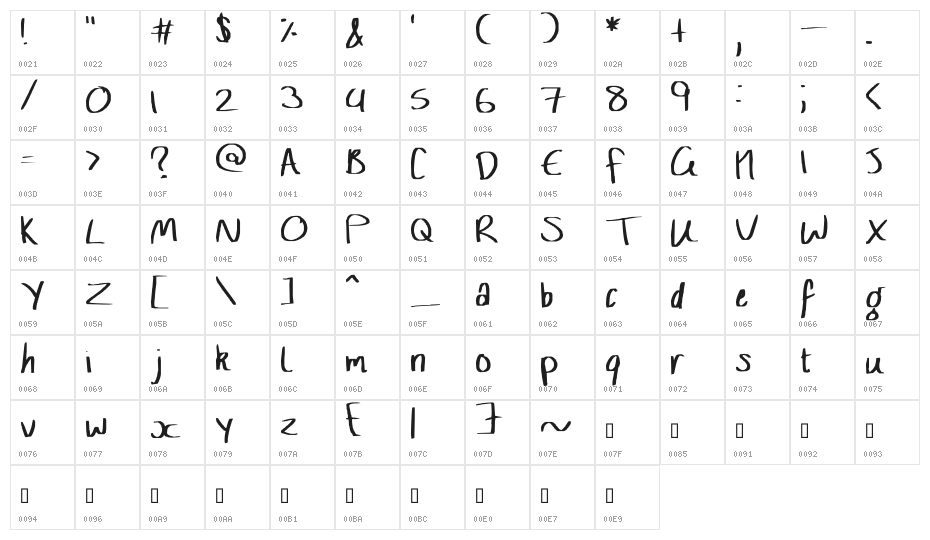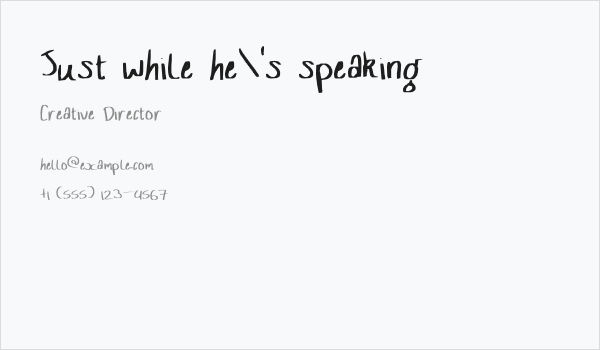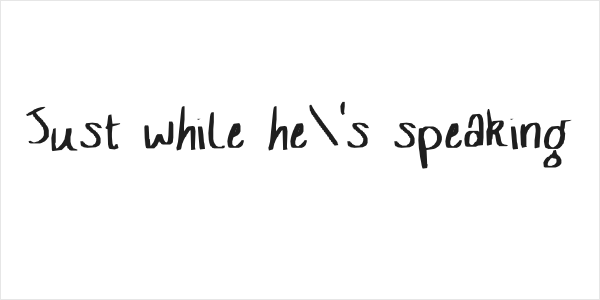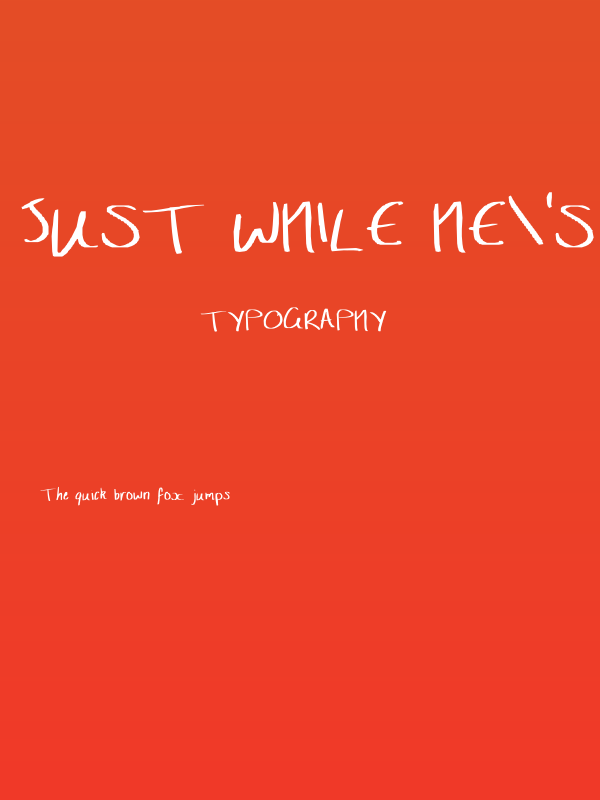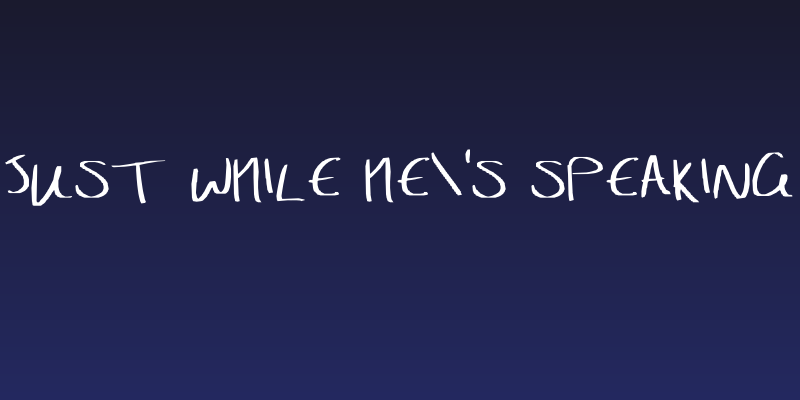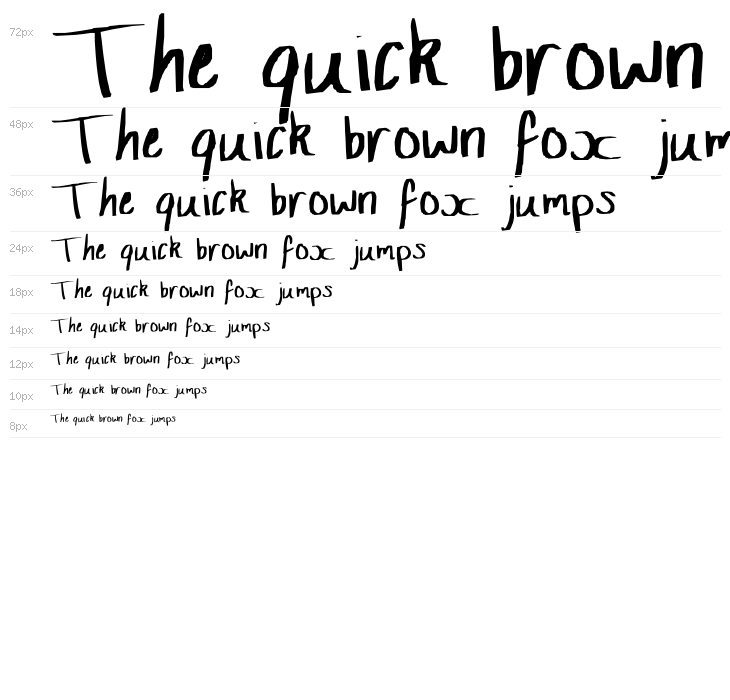
Just while he's speaking Font
Just while he's speaking Description
This font features a playful and casual handwritten style, characterized by its irregular strokes and organic flow. The letters are slightly slanted, giving a dynamic and lively appearance. The uppercase letters are bold and prominent, while the lowercase letters maintain a consistent yet informal look. Numbers and special characters follow the same whimsical style, making the font suitable for creative and informal projects. The overall appearance is approachable and friendly, with a touch of spontaneity.
| Proposed Projects | Ideal for greeting cards, children's books, personal blogs, and creative branding projects. |